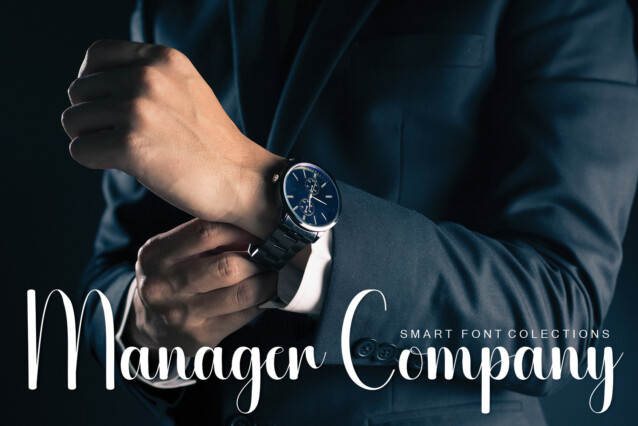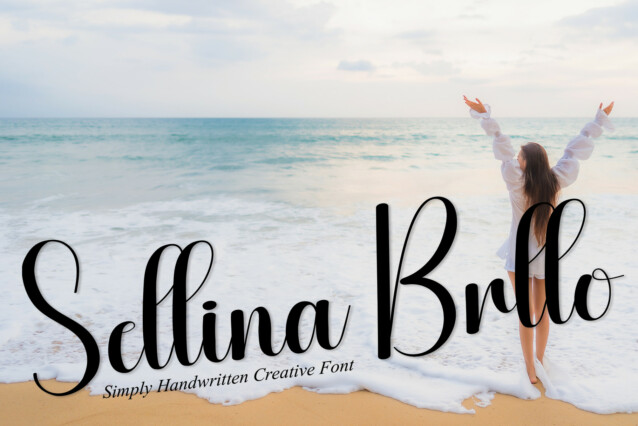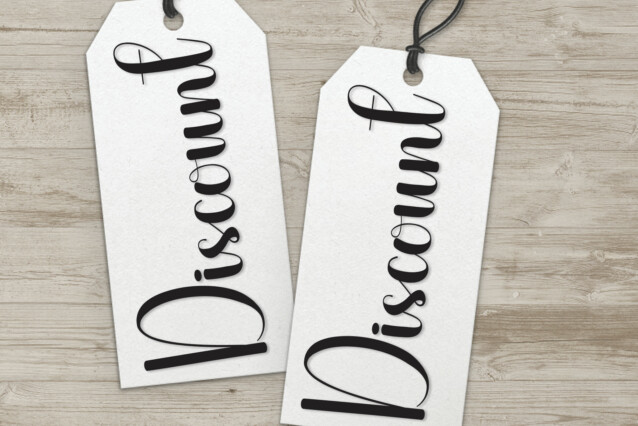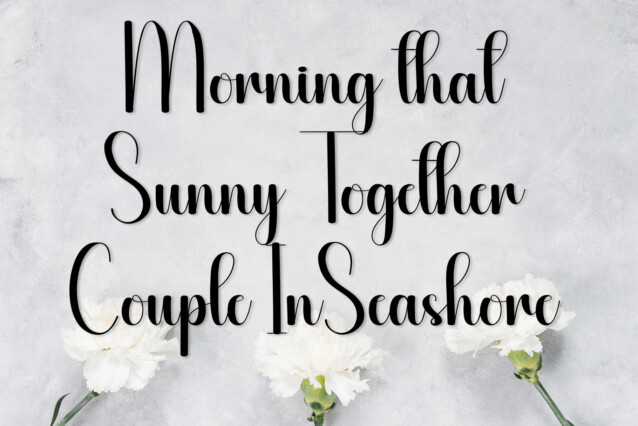
Adjective Script Font
Adjective Script Font is a sweet and delicate handwritten font. Dainty and joyful, this font will be ideal for writing wedding invitations, cards or any other design that may need a romantic, personalized touch!